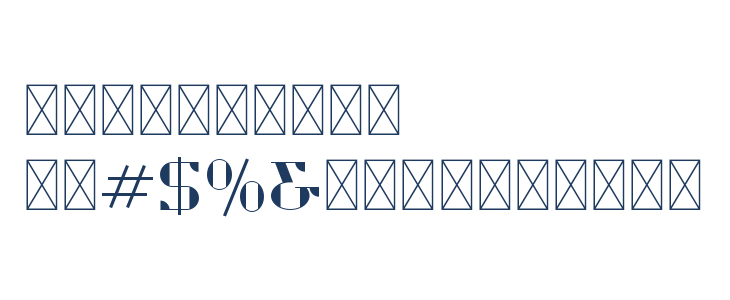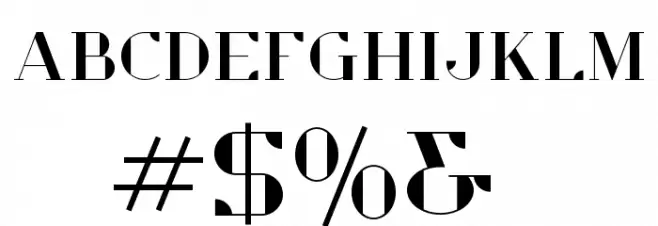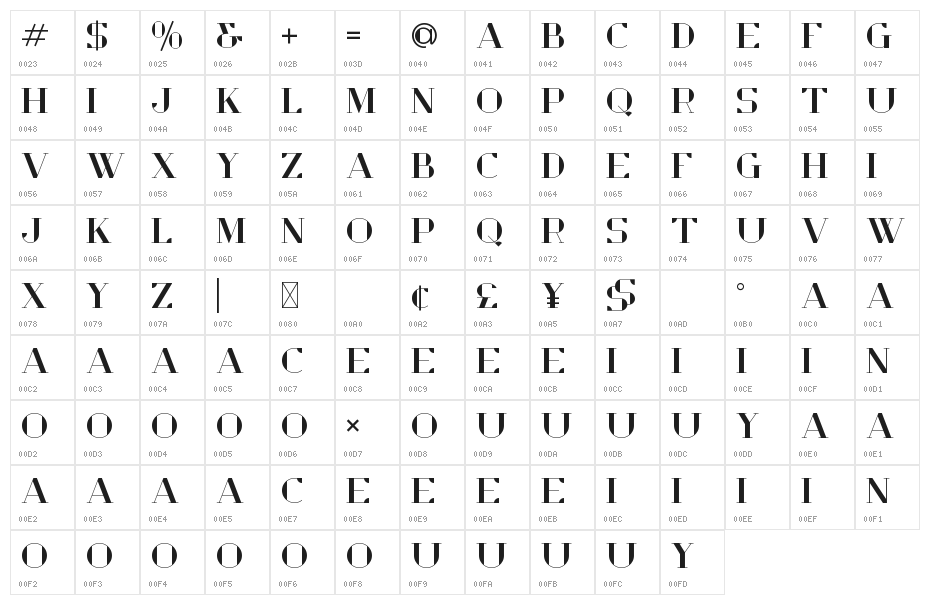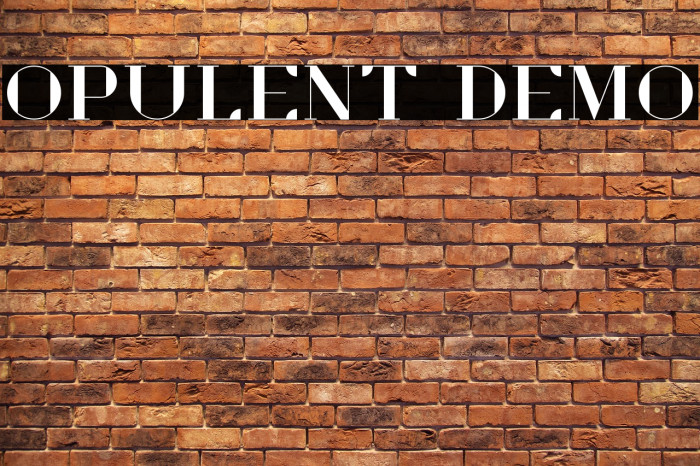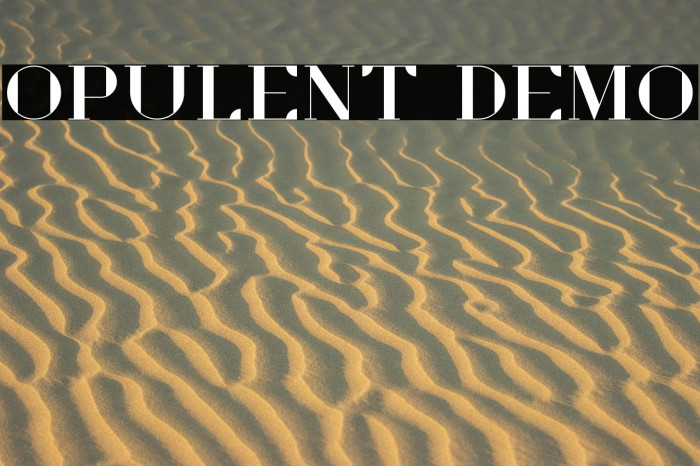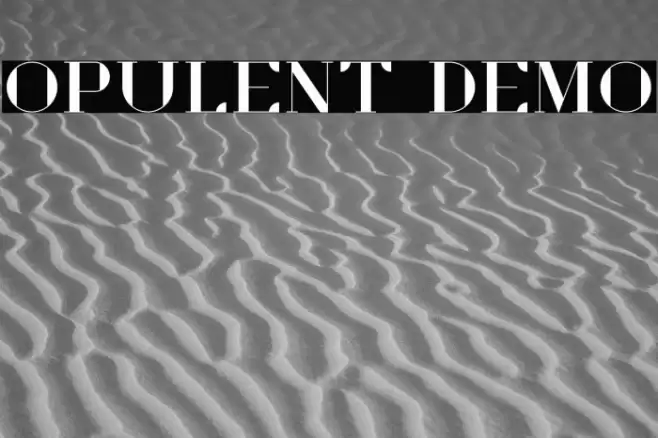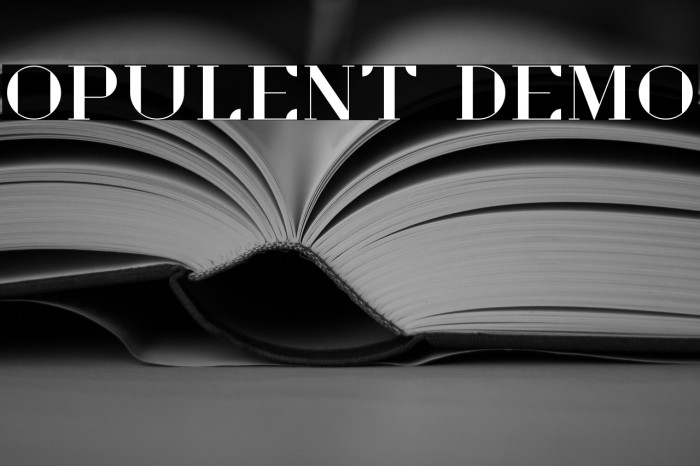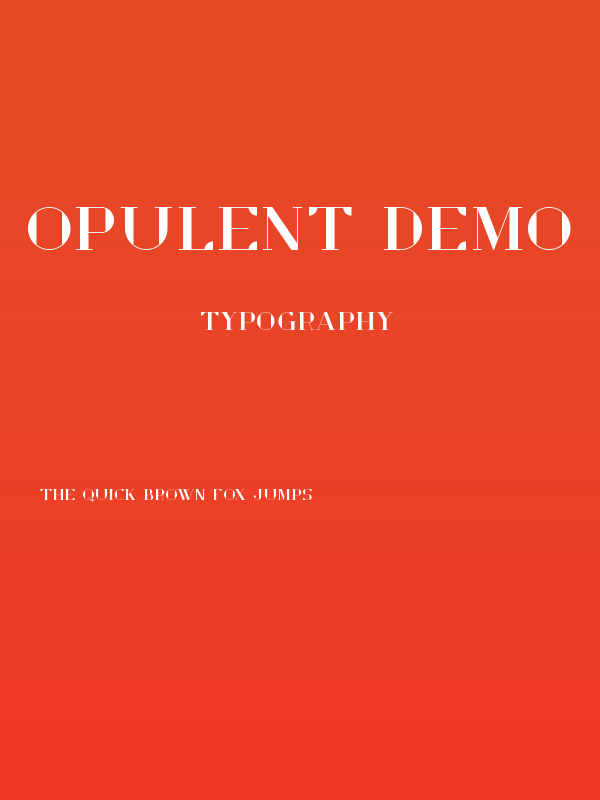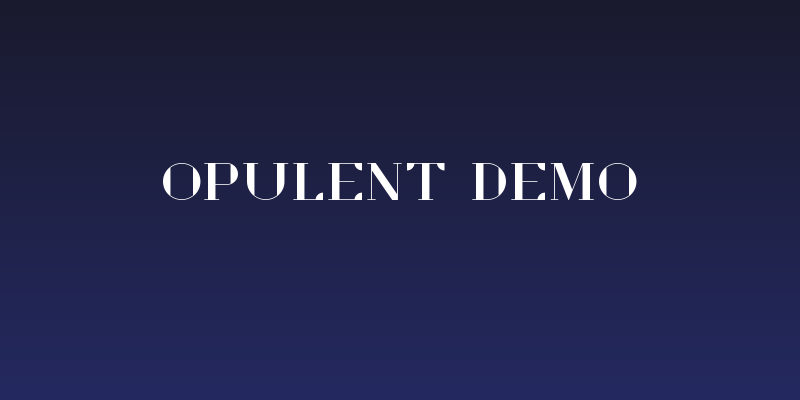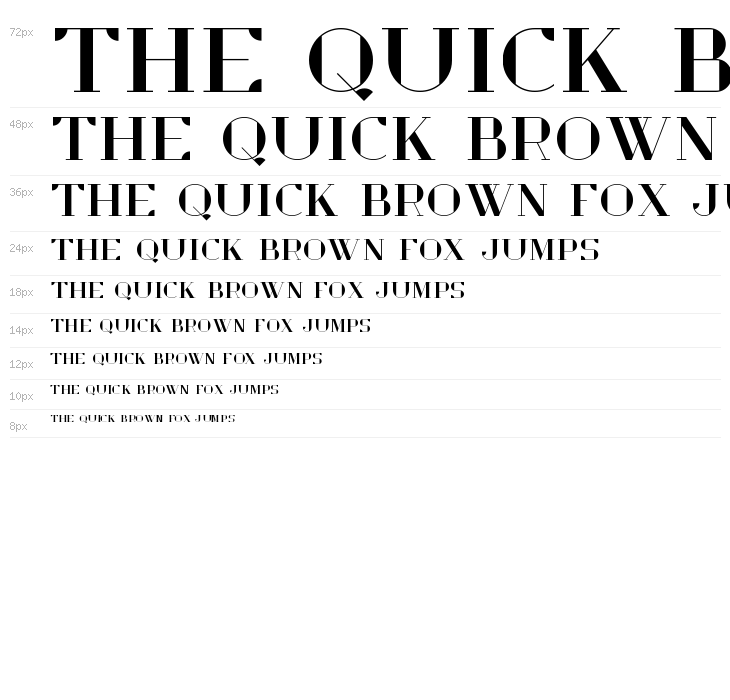
Opulent Demo Font
Opulent Demo Description
This font exhibits a striking and sophisticated design, characterized by its high contrast between thick and thin strokes. The uppercase letters are elegantly crafted with sharp serifs and a modern flair, making it suitable for luxurious and high-end branding. The unique cutouts and angles in certain characters add a distinctive and contemporary touch, enhancing its visual appeal. The special characters maintain the same level of elegance and style, ensuring consistency across all elements. This font is perfect for projects that require a bold statement and a touch of opulence.
| Proposed Projects | Ideal for luxury branding, fashion magazines, high-end product packaging, and elegant invitations. |